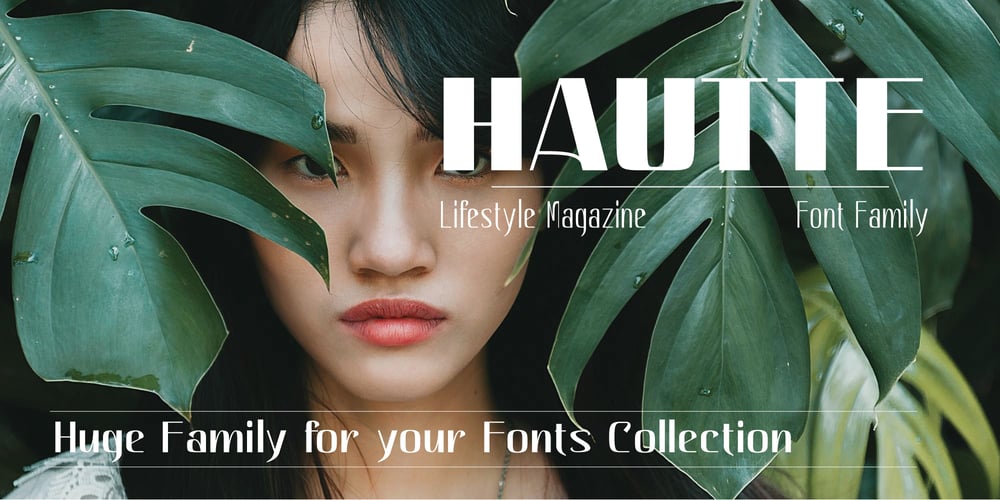
Hautte Font Family was designed by A A Ngurah A Krisna Teja and published by Anomali Creative. Hautte contains 162 styles and family package options. Introducing Hautte: A multi-faceted Sans Serif Display typeface with more than 100 different styles: An elegant minimal sans serif.The hybrid personality of HautteThere’s beauty in the plain version of Hautte, even without all the extras, for a clean and elegant minimal sans serif. Any version of Hautte brings a touch of luxury and bespoke custom typography to modern logos, websites, social media quotes, wedding branding, and more.Thank you so much for checking out my shop, and please get in touch if you have any questions!